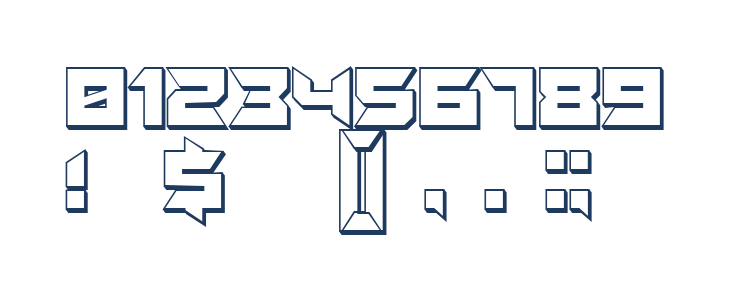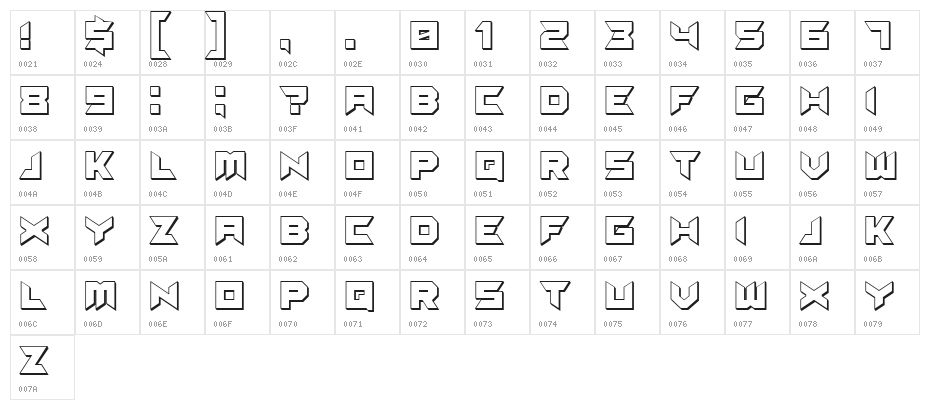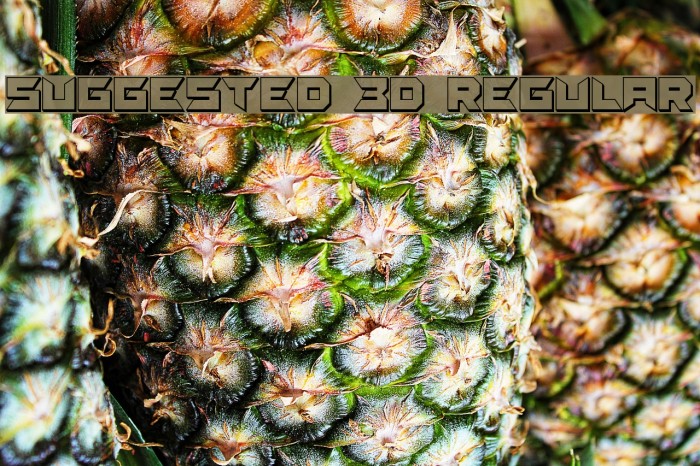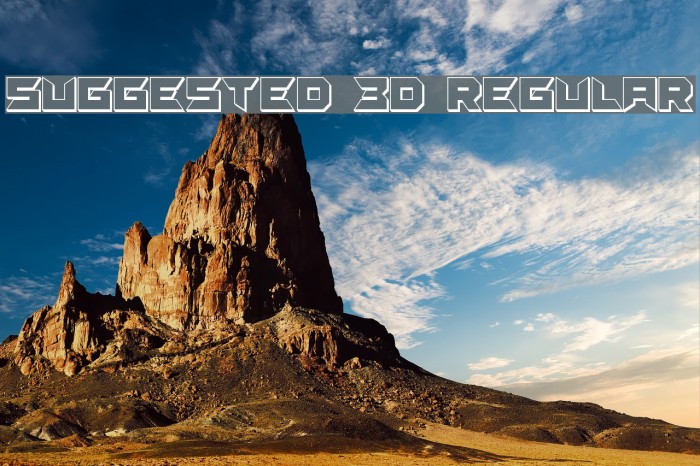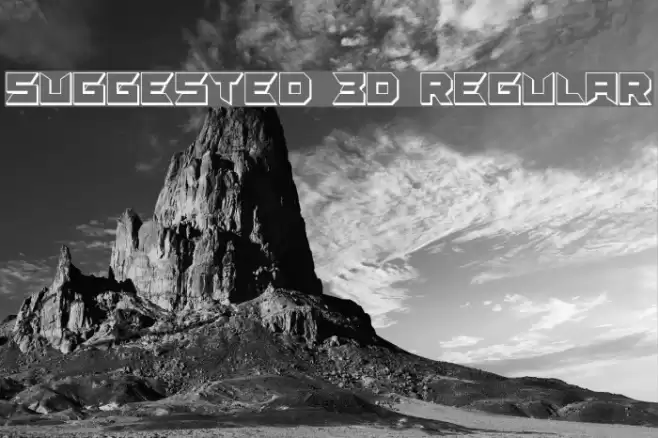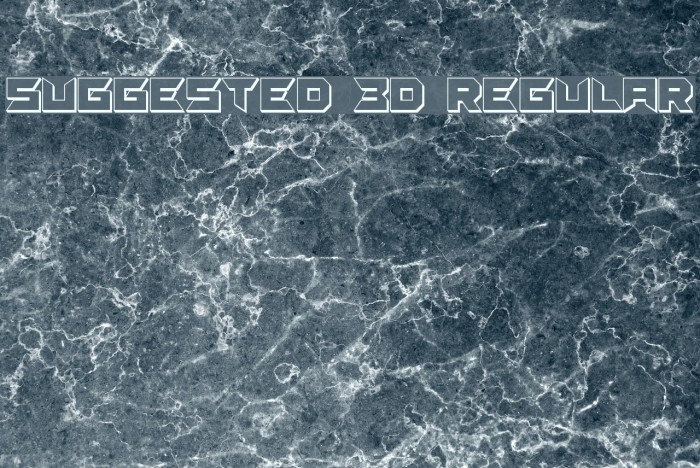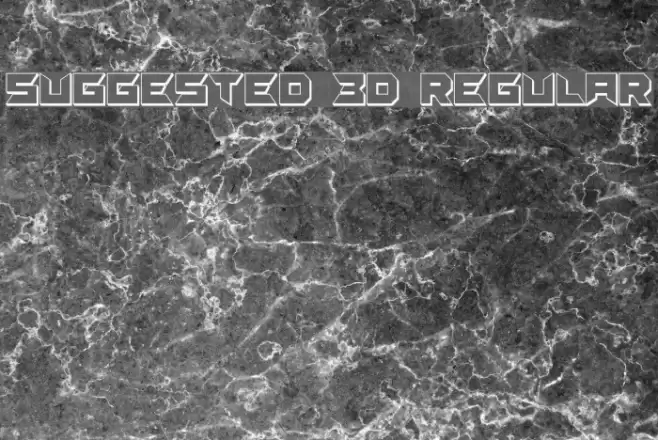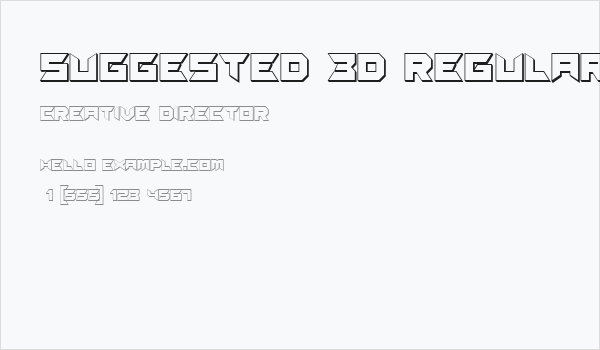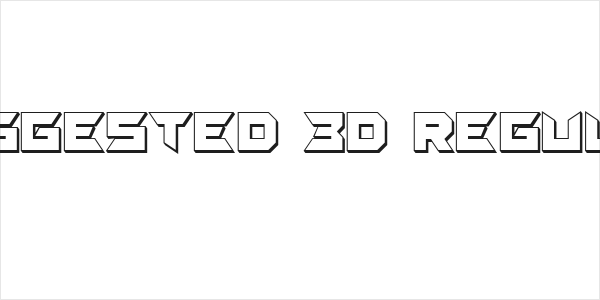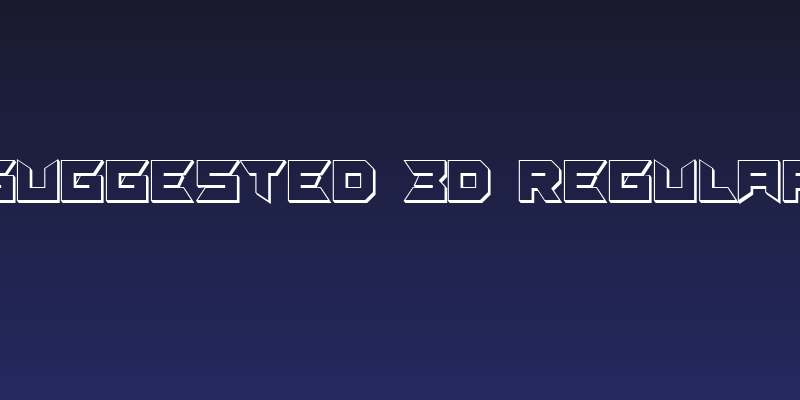
Suggested 3D Regular Font
Suggested 3D Regular Description
This font features a bold, three-dimensional design with a geometric and angular style. The characters are outlined, creating a shadow effect that gives them depth and a sense of movement. The uppercase and lowercase letters maintain a consistent structure, with sharp edges and a futuristic appearance. The numbers and special characters follow the same design principles, ensuring uniformity across all elements. This font is visually striking and commands attention, making it ideal for projects that require a modern and dynamic look.
| Proposed Projects | Ideal for branding, posters, video game graphics, and any project needing a modern, eye-catching typeface. |